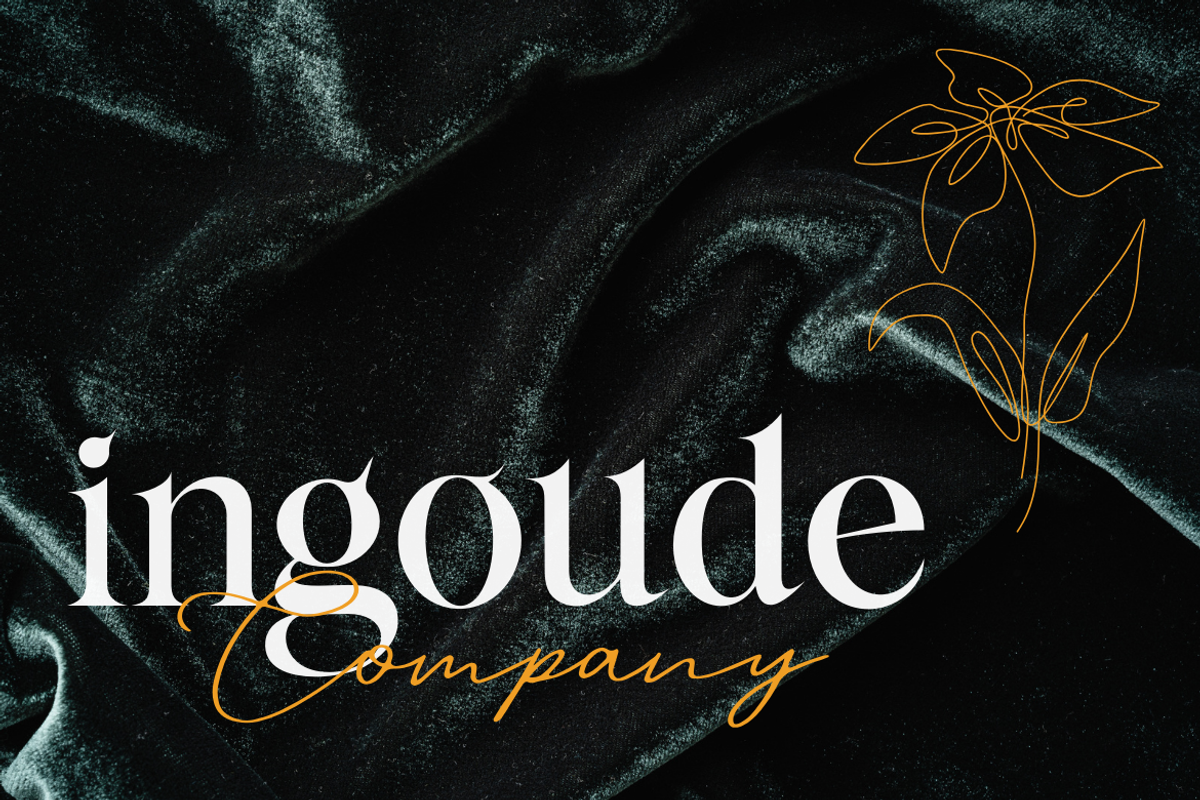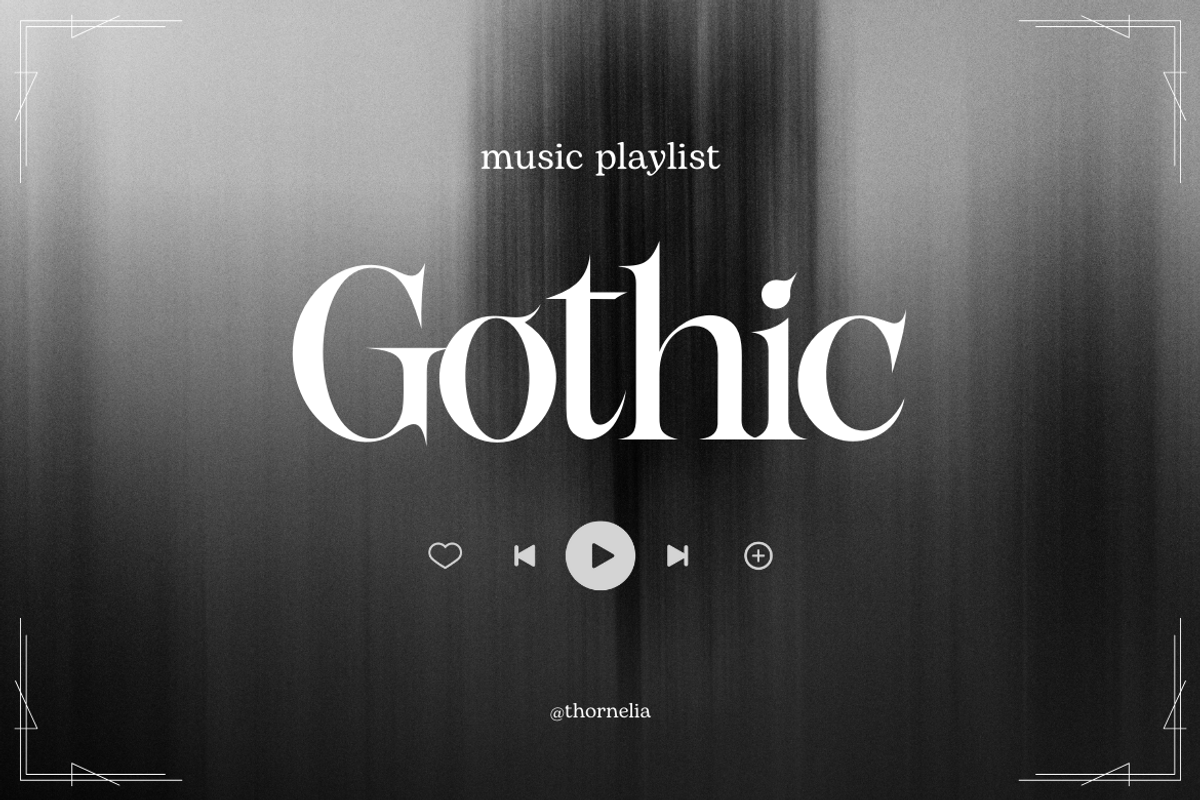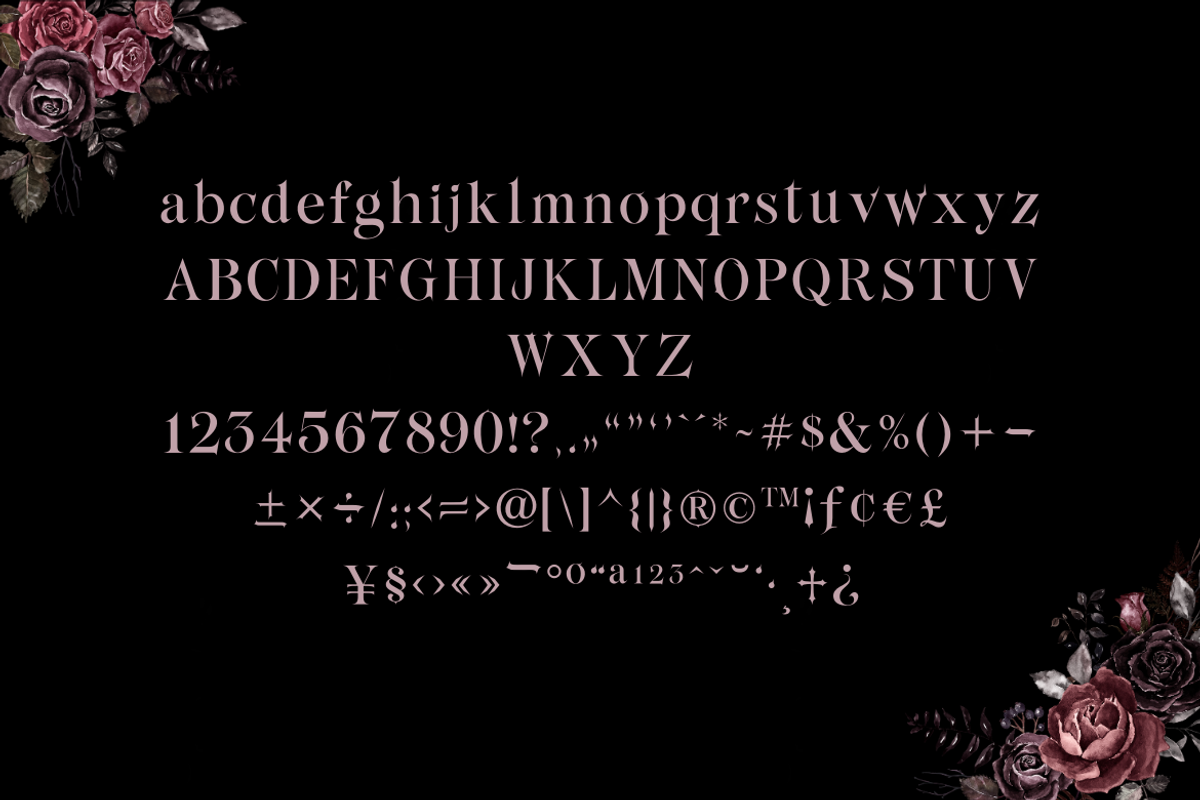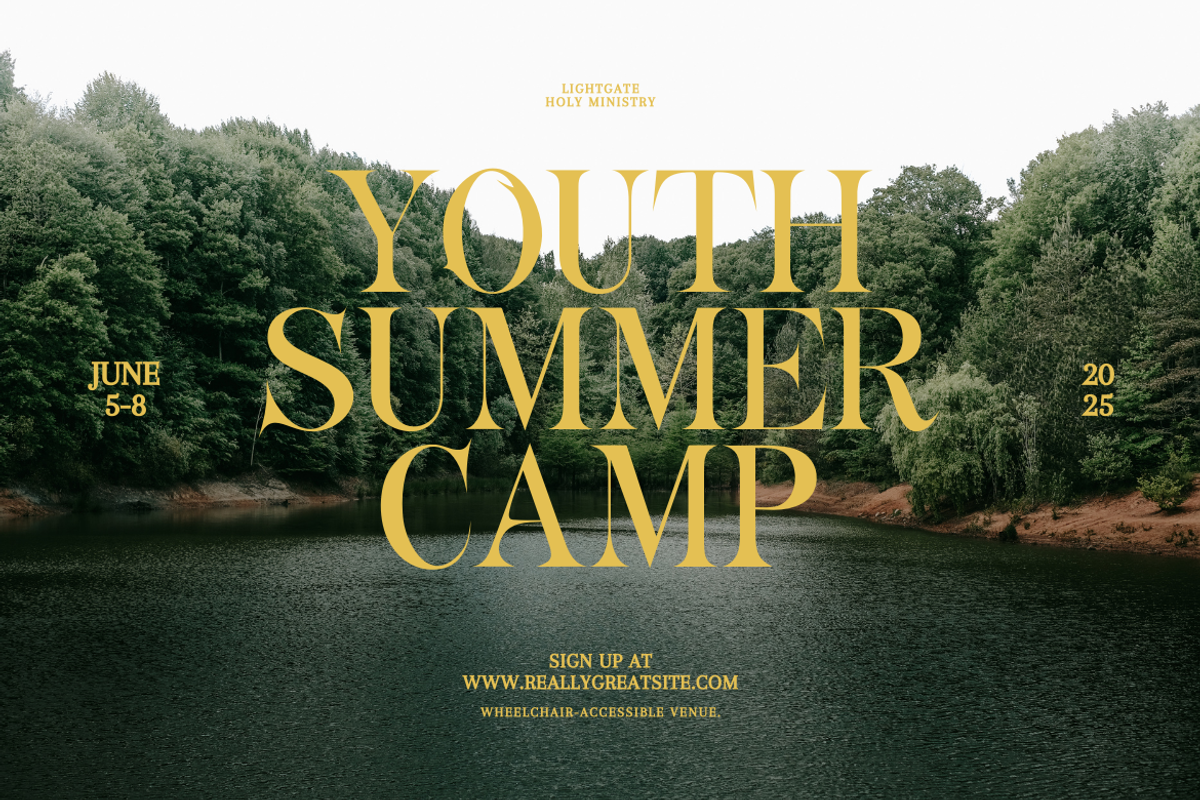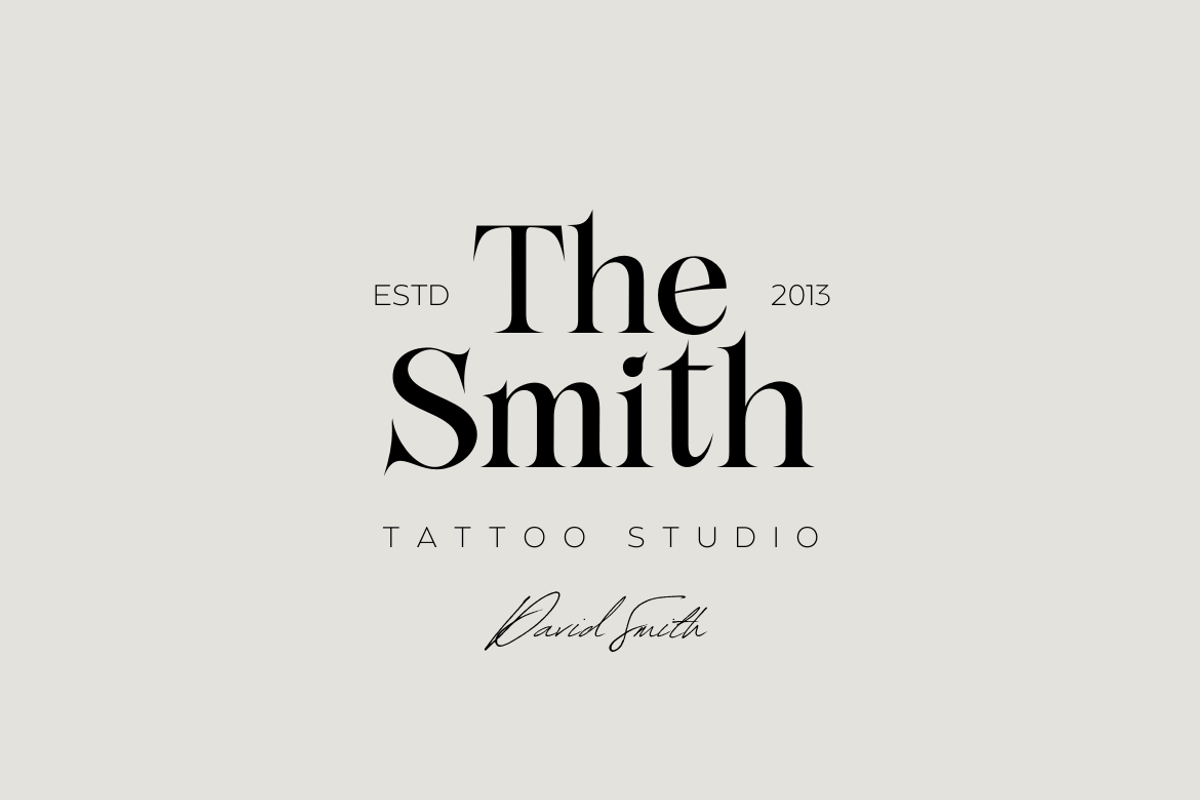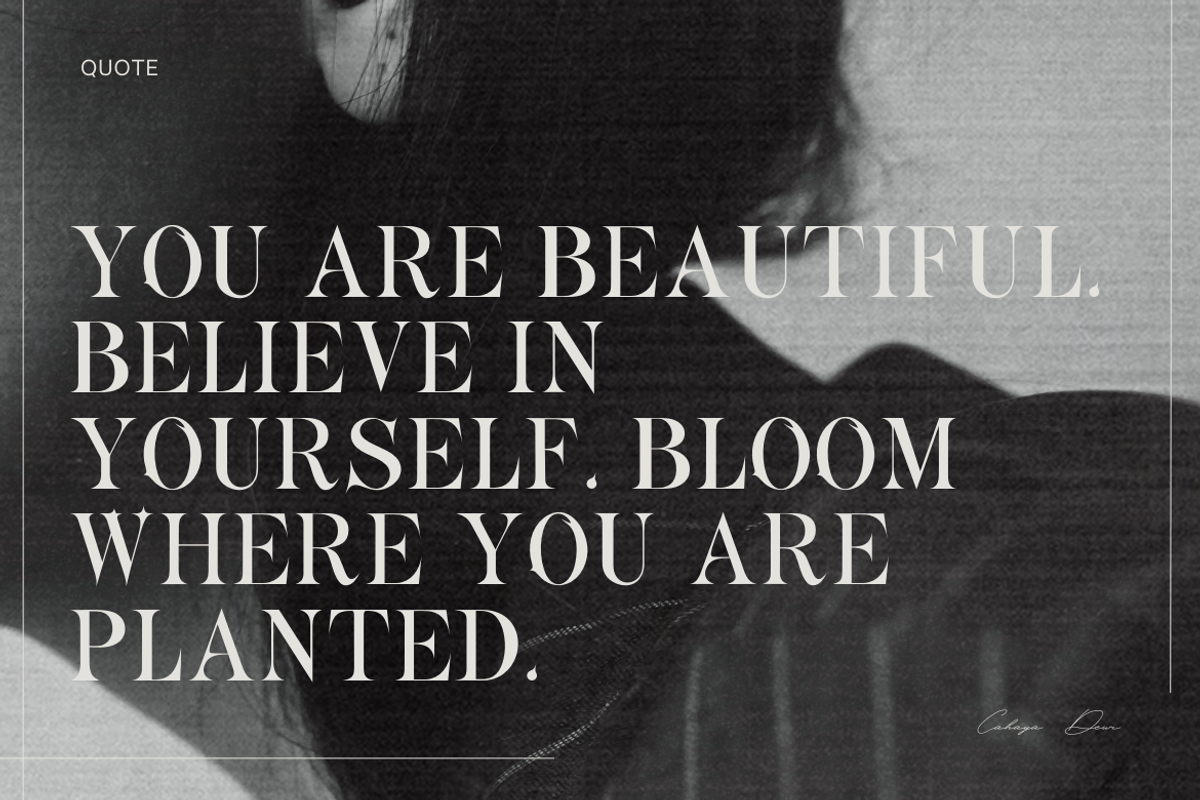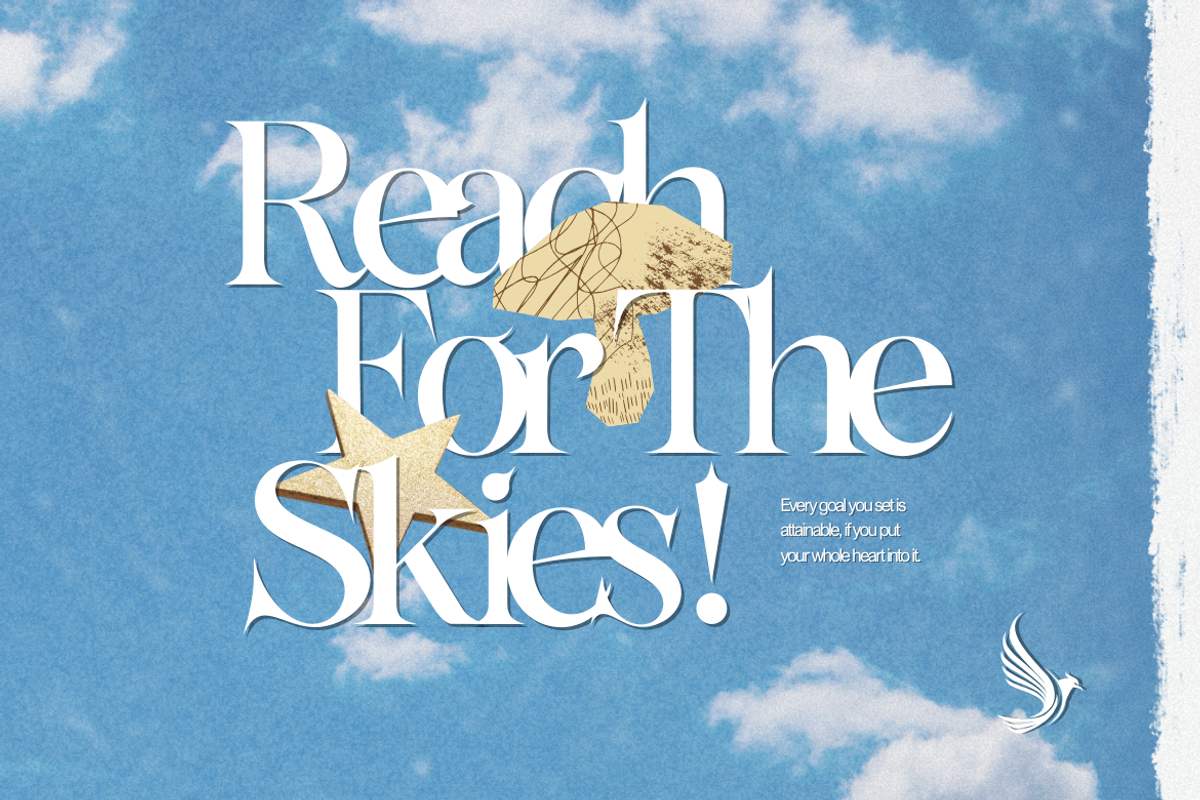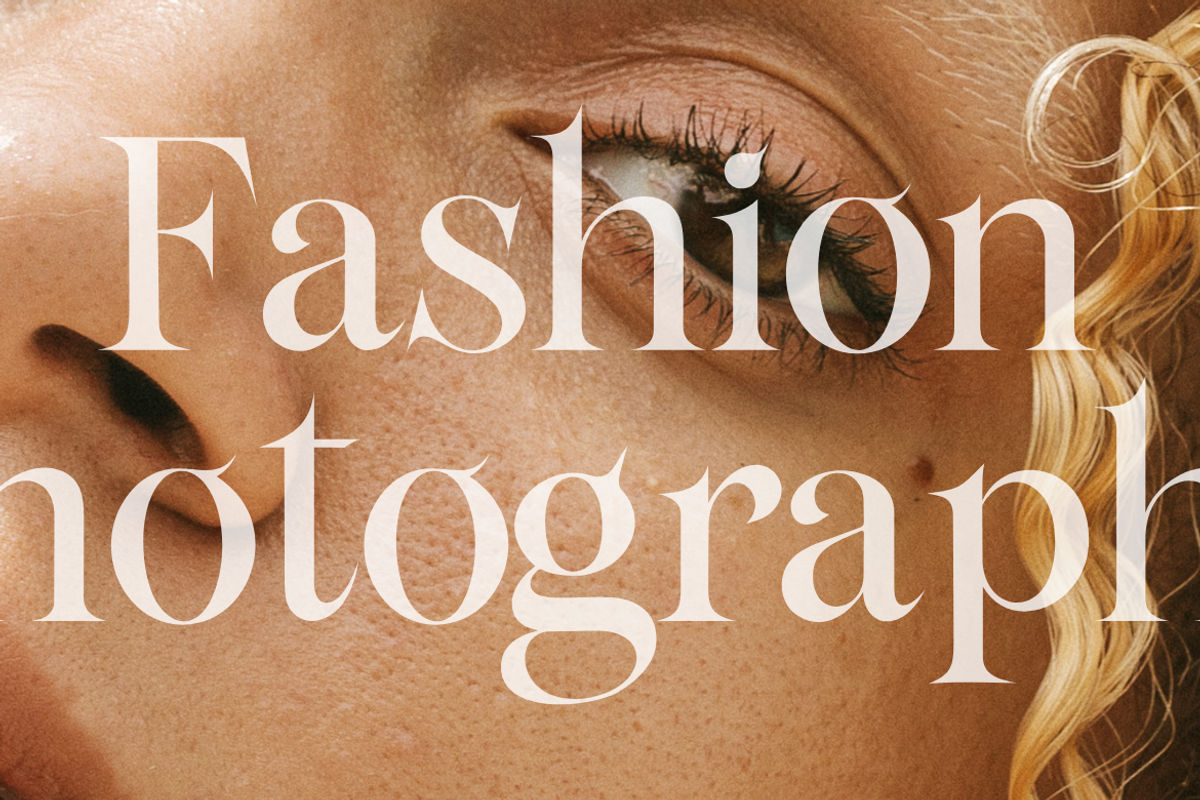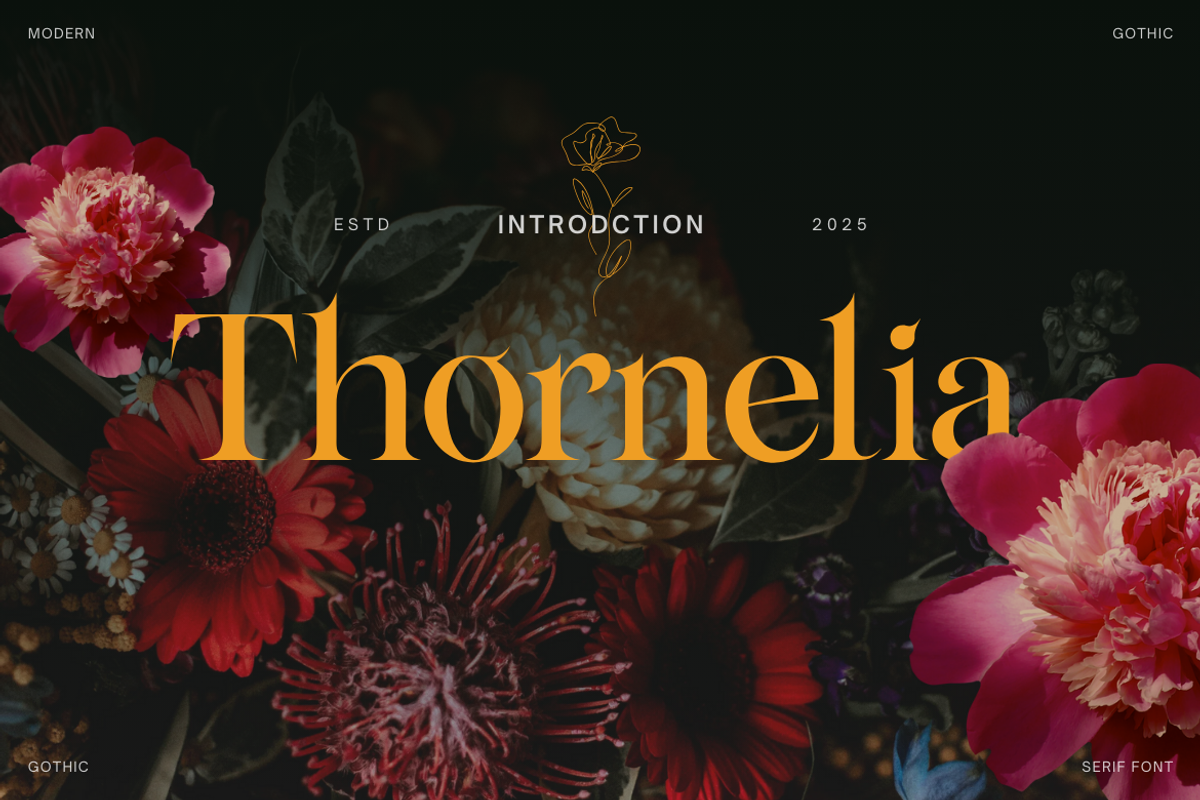
Thornelia — Modern Gothic Serif Font
Say hello to Thornelia, a high-contrast serif font with a touch of gothic romance and modern elegance. Designed to make every word feel like a statement, Thornelia combines sharp edges, flowing curves, and delicate ligatures to give your designs a bold, editorial personality.
Whether you're crafting a fashion brand, designing an album cover, or creating dreamy quote graphics, Thornelia brings a poetic yet powerful presence to your work. The font is especially beautiful for large headings, magazine layouts, packaging, wedding designs, or any creative project that needs a little drama and grace.
Ideal for:
- Branding & logo design
- Editorial layouts & lookbooks
- Wedding stationery & invitations
- Music & lifestyle posters
- Instagram quotes & visual storytelling
Let your words bloom with the refined charm of Thornelia — timeless, bold, and full of character.